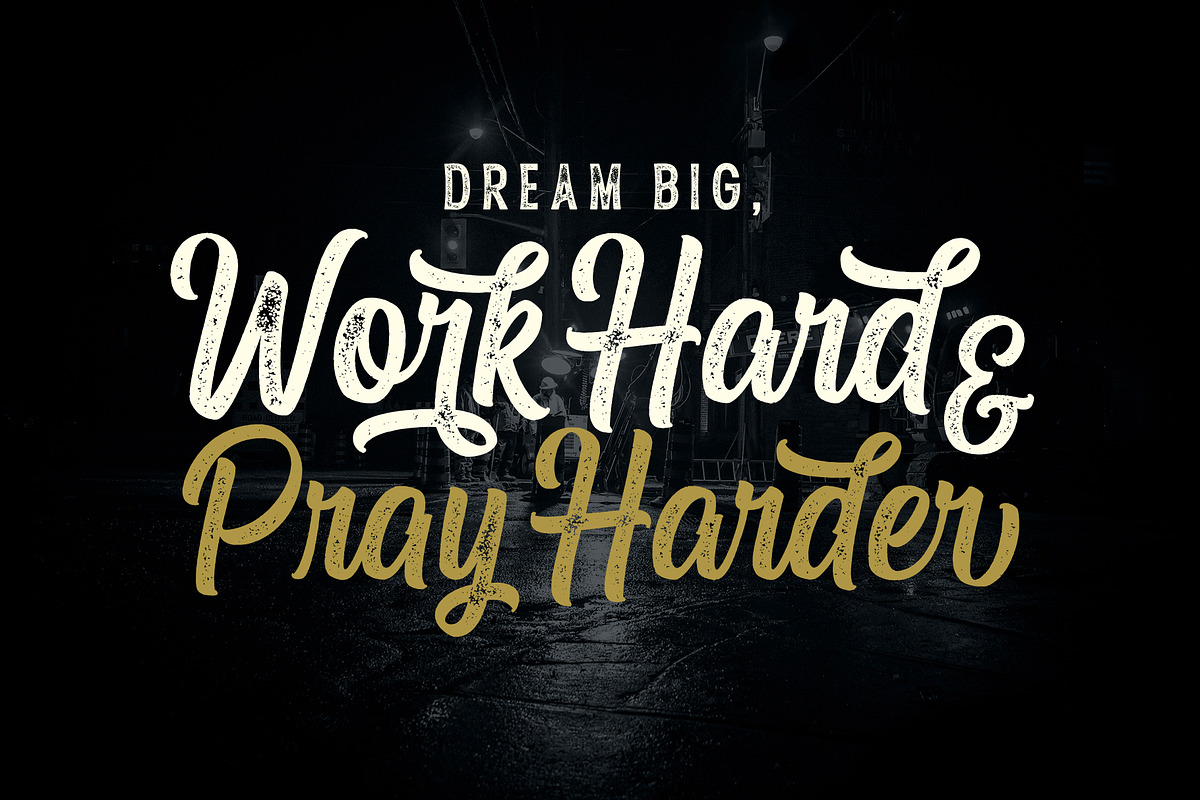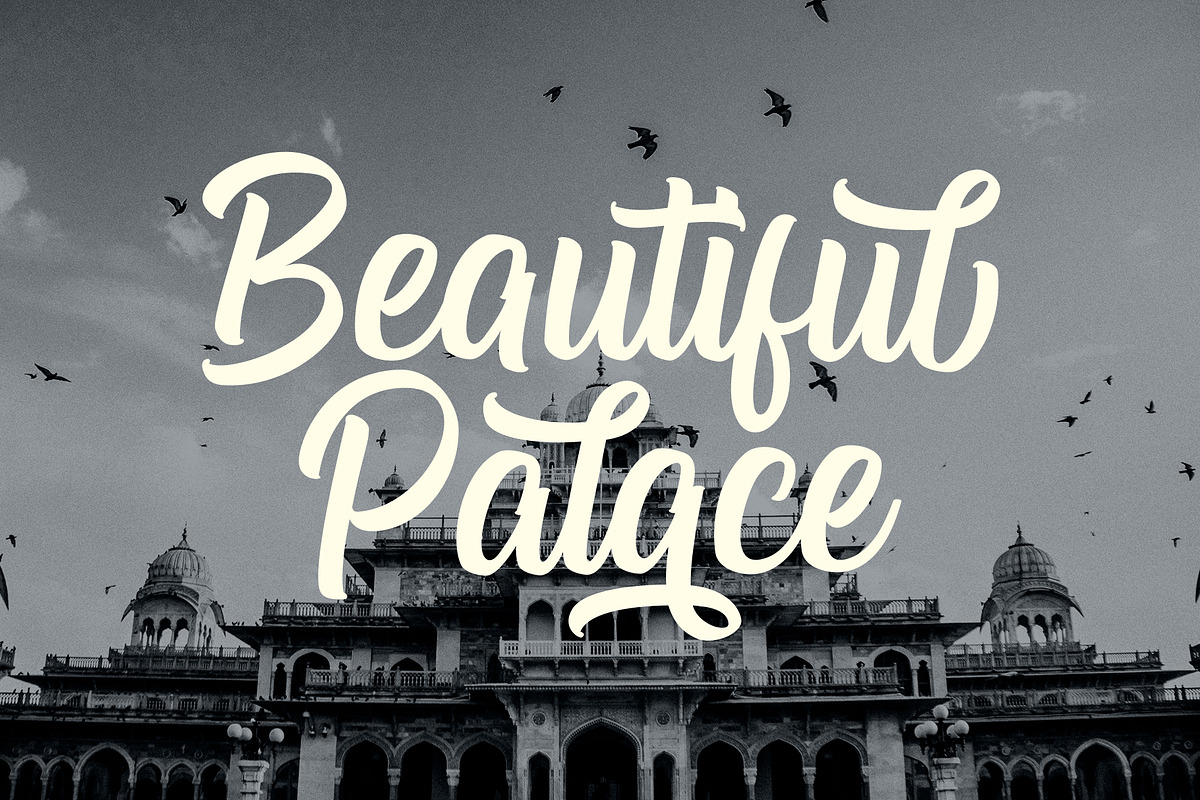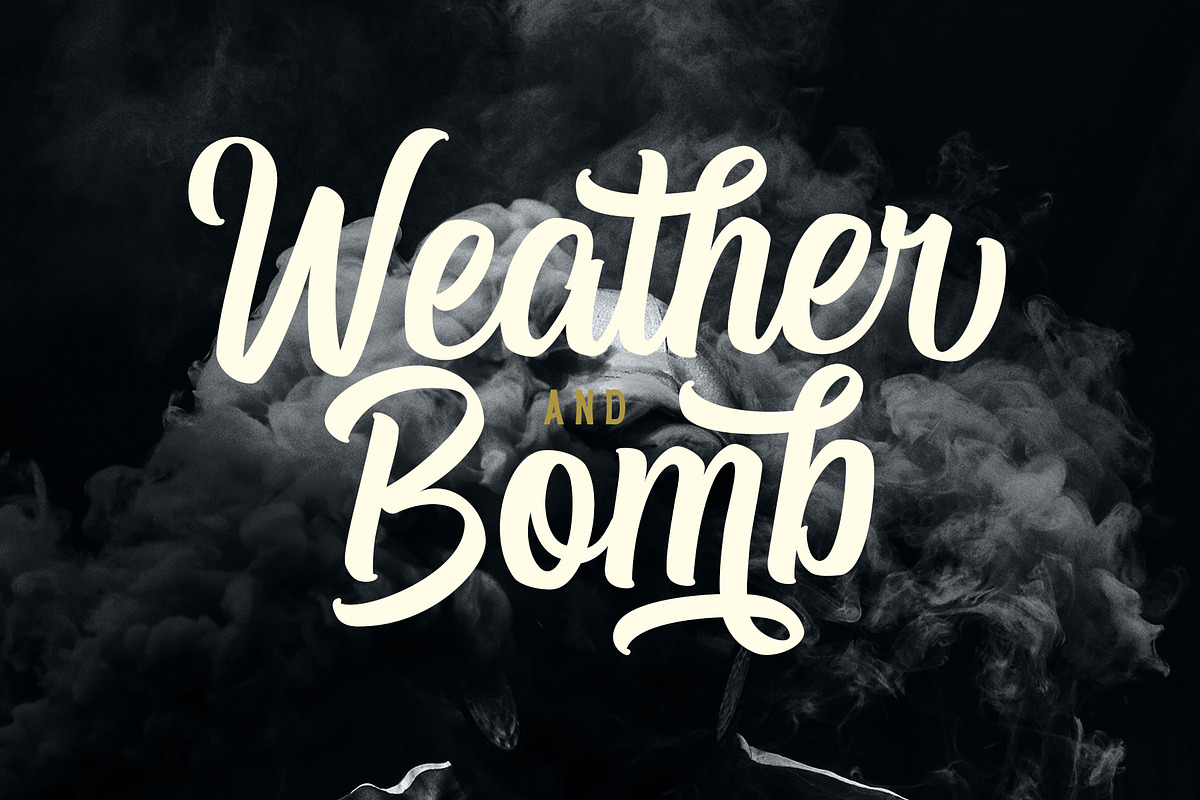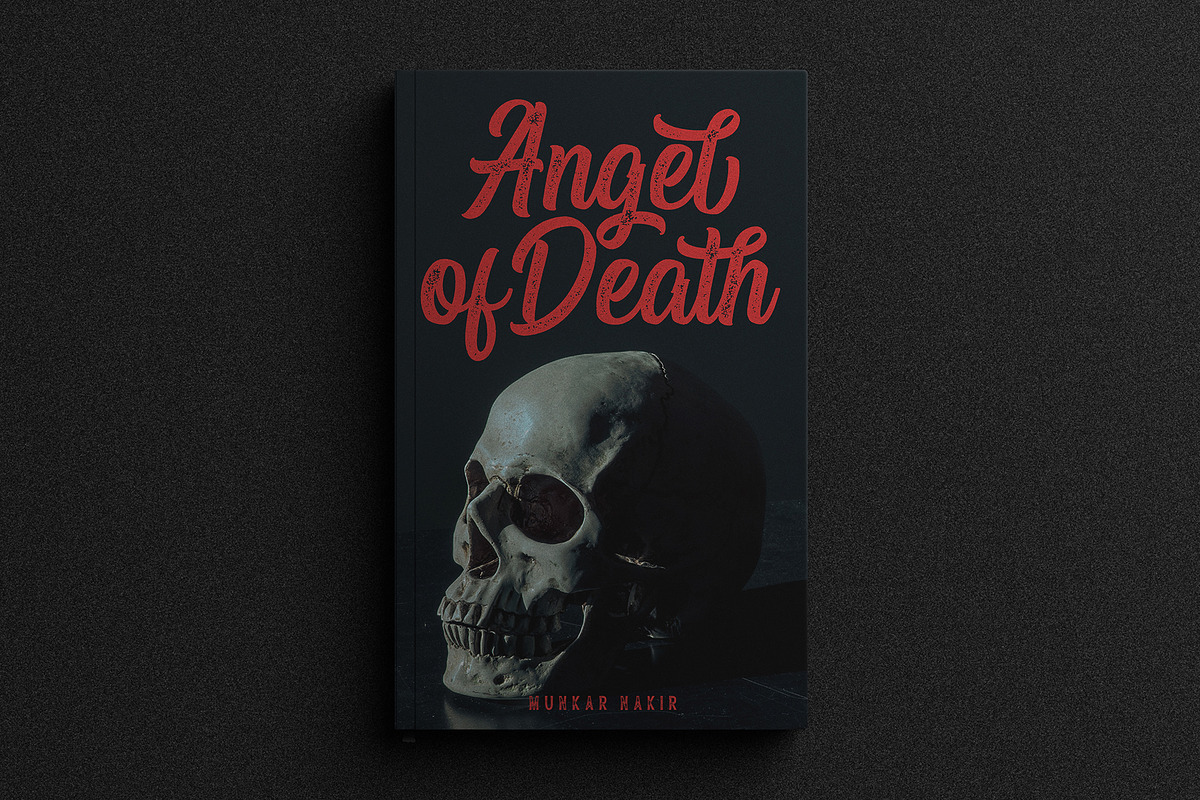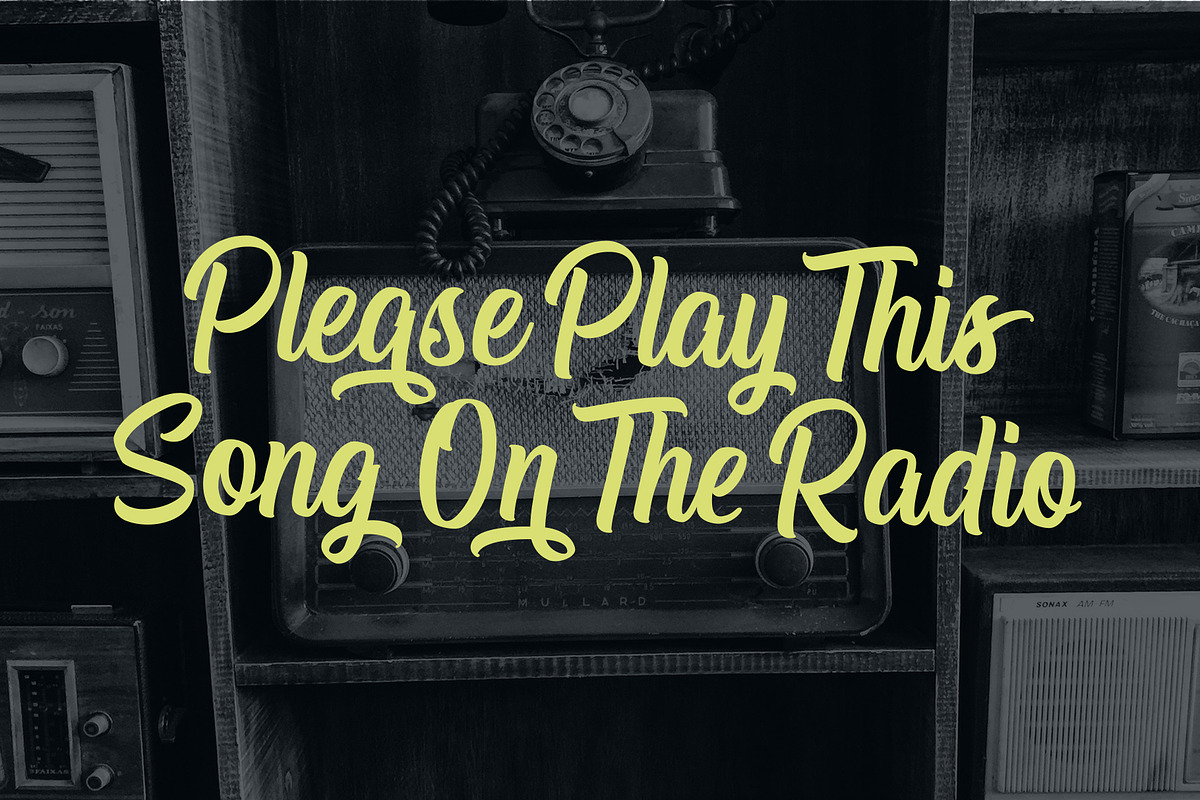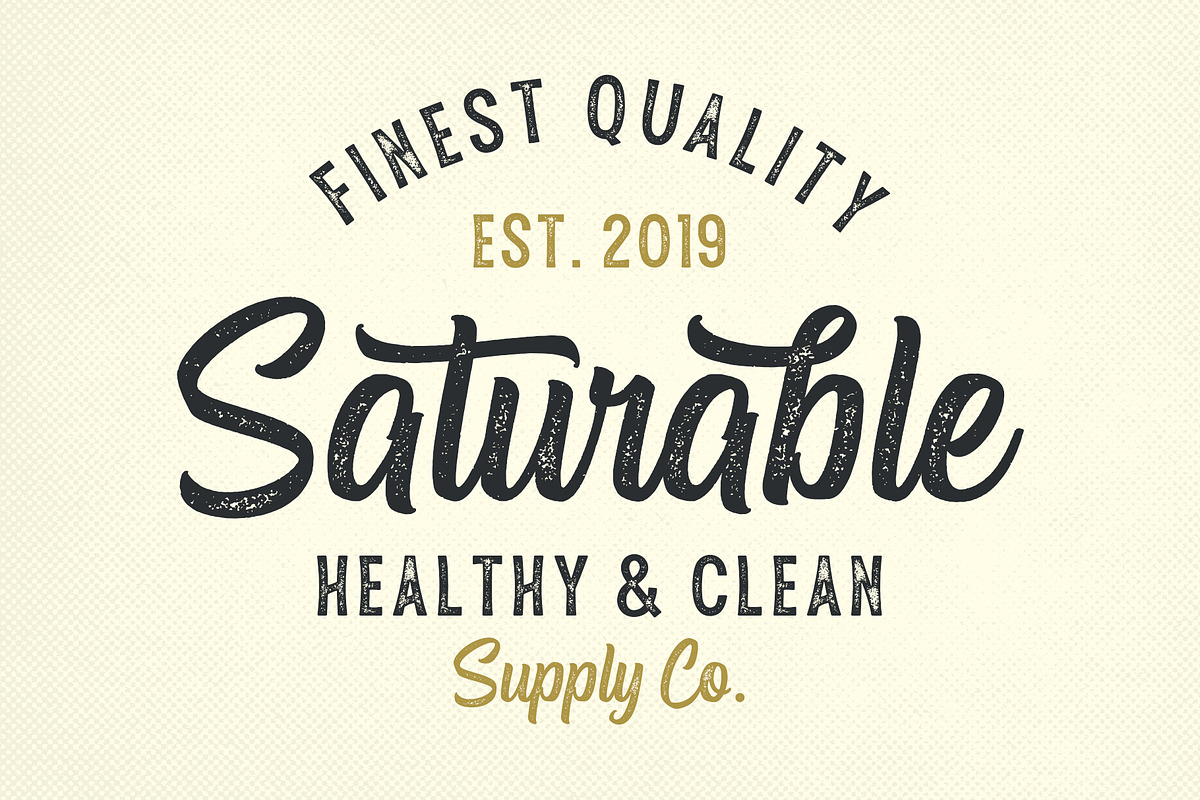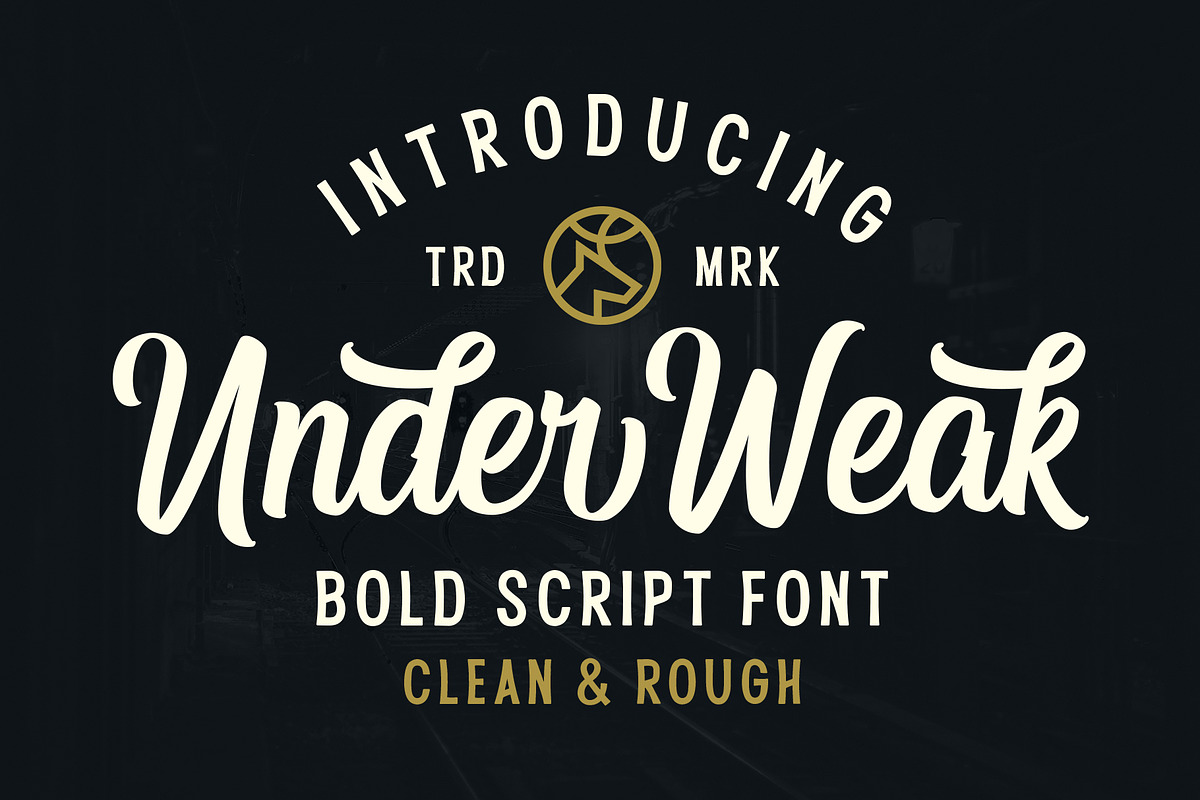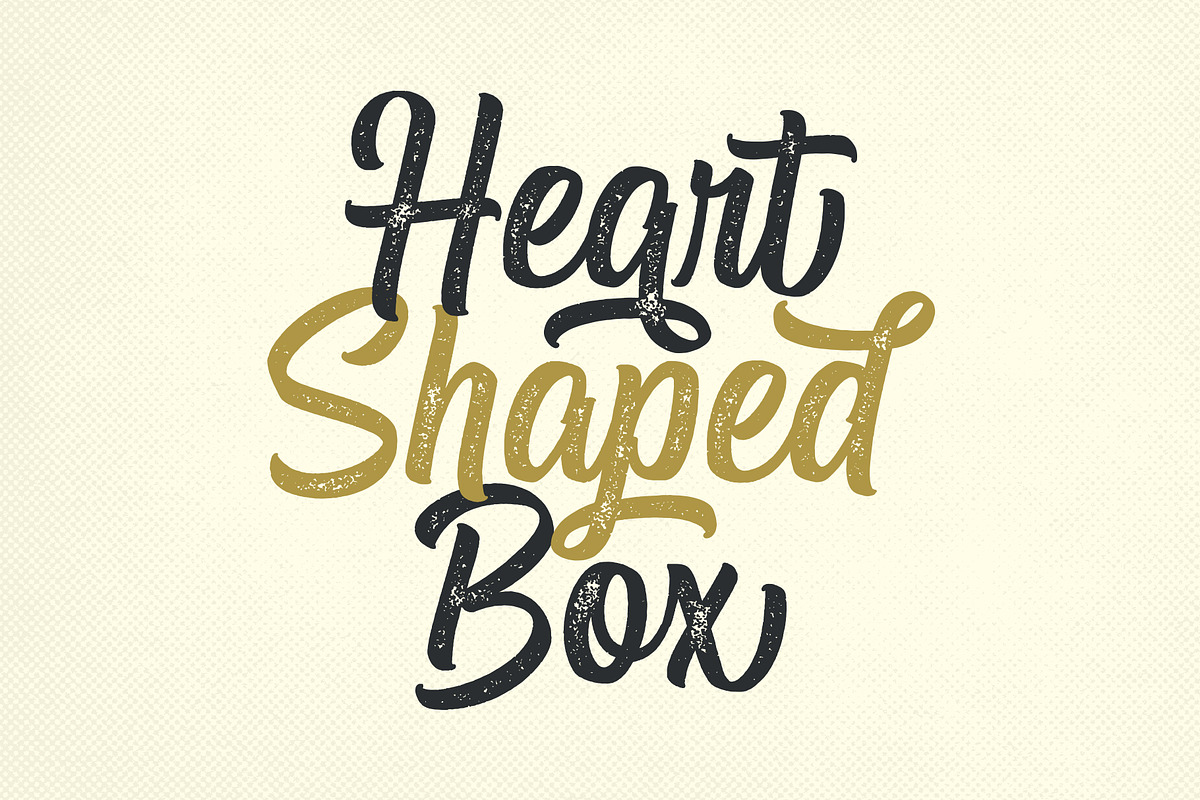
Under Weak Script Font
Under Weak is designed with reference to flexible strokes and details. The impression and emotion of the font displayed are dynamic and attractive, bringing out the natural feel. This font is a modern script because every stroke and curve is firm and sharp. Under Weak comes with two different style choices - the clean version and stamp version. It will be easy and fun to try different nuances with it. This is a flexible and dynamic font that will make every creative project more lively. This font is very suitable for display, and for use in logos and headlines.
Uppercase & lowercase
Punctuation & symbols
International characters (Multilingual)
- Under Weak comes with two different style choices - the clean version and stamp version.
- Under Weak Regular
- Under Weak Rough